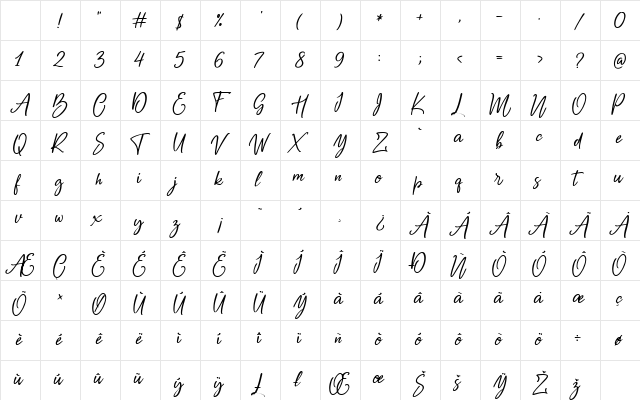
Complete Breath of the River Regular glyph index. Displaying only characters natively supported by Breath of the River Regular font.
Breath of the River is a composed and adaptable typeface that performs quietly and consistently across a wide range of design contexts.